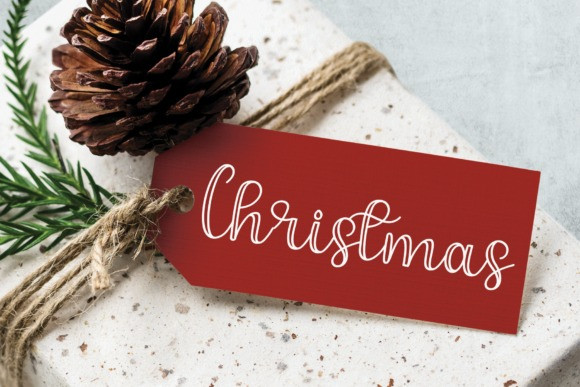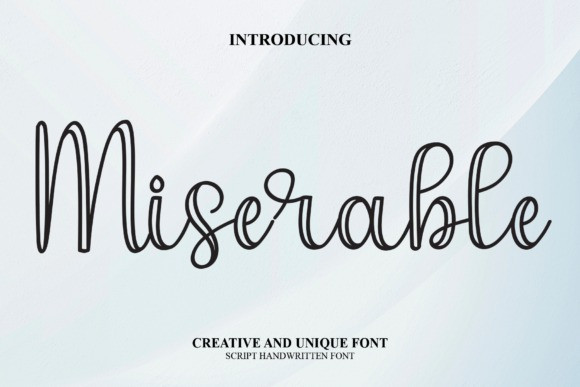
Miserable Font
Miserable Font is a sweet handwritten font that was crafted with great care to produce the expected results. It has a beautiful and balanced character, that fits well with the large design pool.